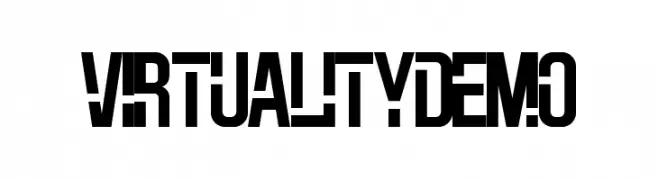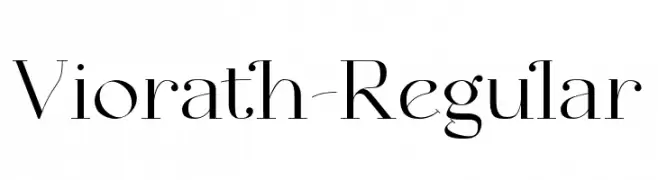
A playful, whimsical font with cursive-like, flowing letters and unique flourishes.
A bold, playful handwritten font with a casual and dynamic style.
An elegant and flowing script font with graceful curves and loops.
A high-contrast, modern serif font with elegant curves and artistic flair.
A decorative and elegant font with high contrast and unique flourishes.
A bold, geometric font with a modern and futuristic style.
A futuristic, geometric font with bold, rhythmic lines and a tech-inspired design.
A futuristic, italic font with bold, geometric shapes and dynamic lines.
A bold, high-contrast serif font with sharp serifs and dramatic presence.
An elegant, flowing script font with dynamic, cursive letterforms.